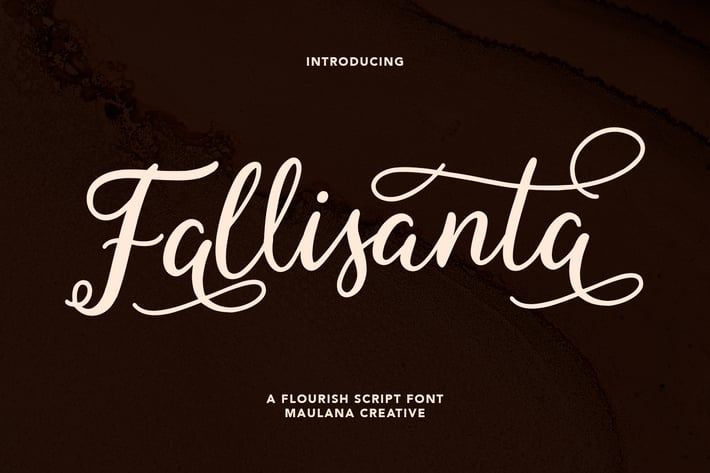
Fallisanta Flourish Font
Fallisanta is a flourish script font with a little bit retro vibes and cursive high contrast stroke. Fallisanta includes opentype features Ligatures and Alternate lowercase flourish. It support multilingual more than 100+ language. This font is suitable for logo design, Movie Titles , Books Titles and any awesome project you create. Make stunning work with Fallisanta flourish font.
- Stylistic Alternate